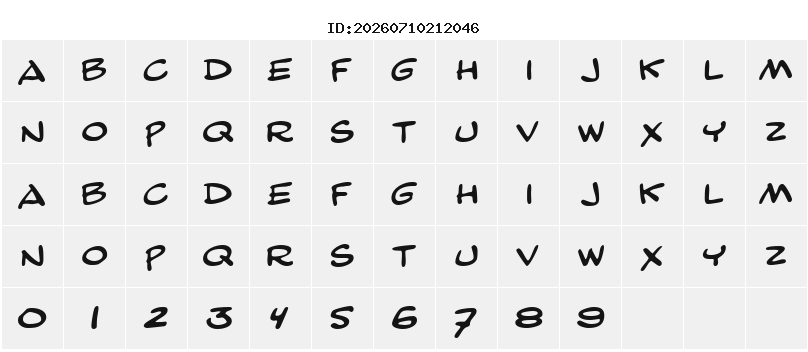
GE Bailiff Caps Preview
• Font Name: GE Bailiff Caps
• Font ID: Graphx Edge Bailiff Caps
• Full Font Name: GE Bailiff Caps
• PostScript Name: GEBailiffCaps
About GE Bailiff Caps.ttf
GE Bailiff Caps.ttf is a modern, elegant sans-serif font designed for ultimate readability and visual harmony. Perfect for branding, headlines, web design, and print materials.